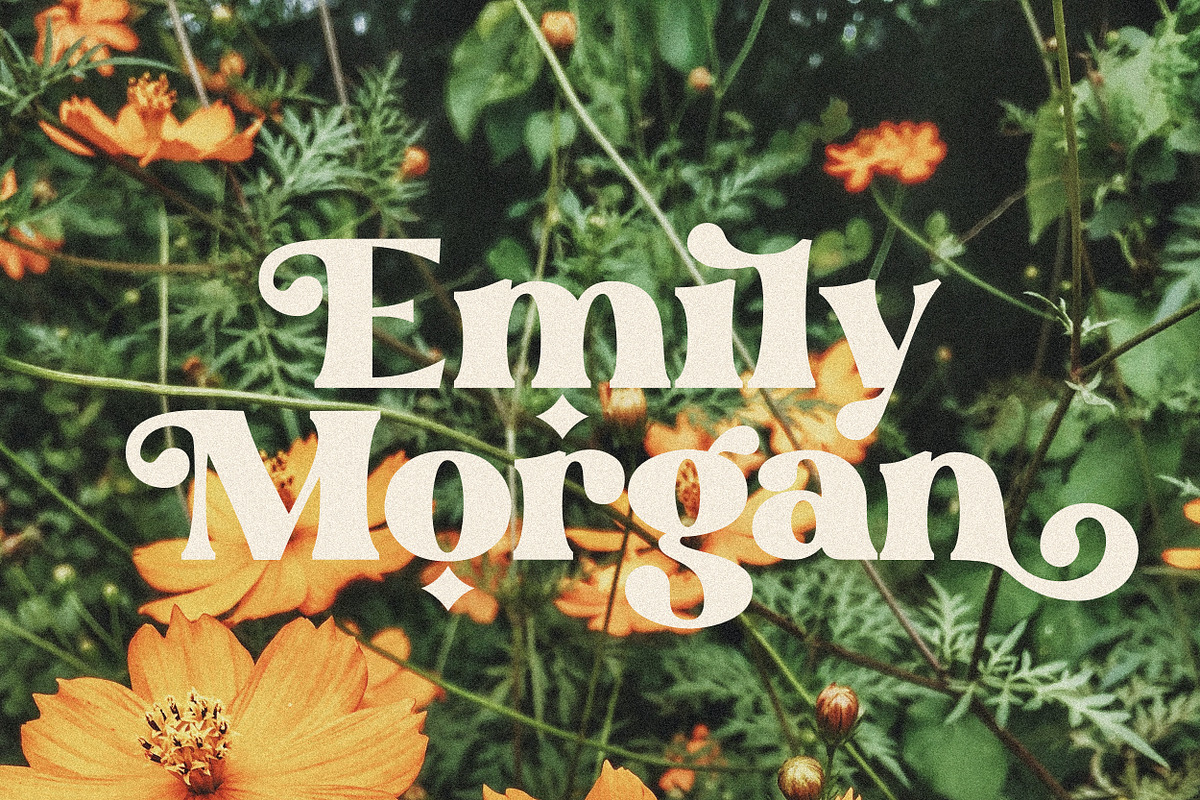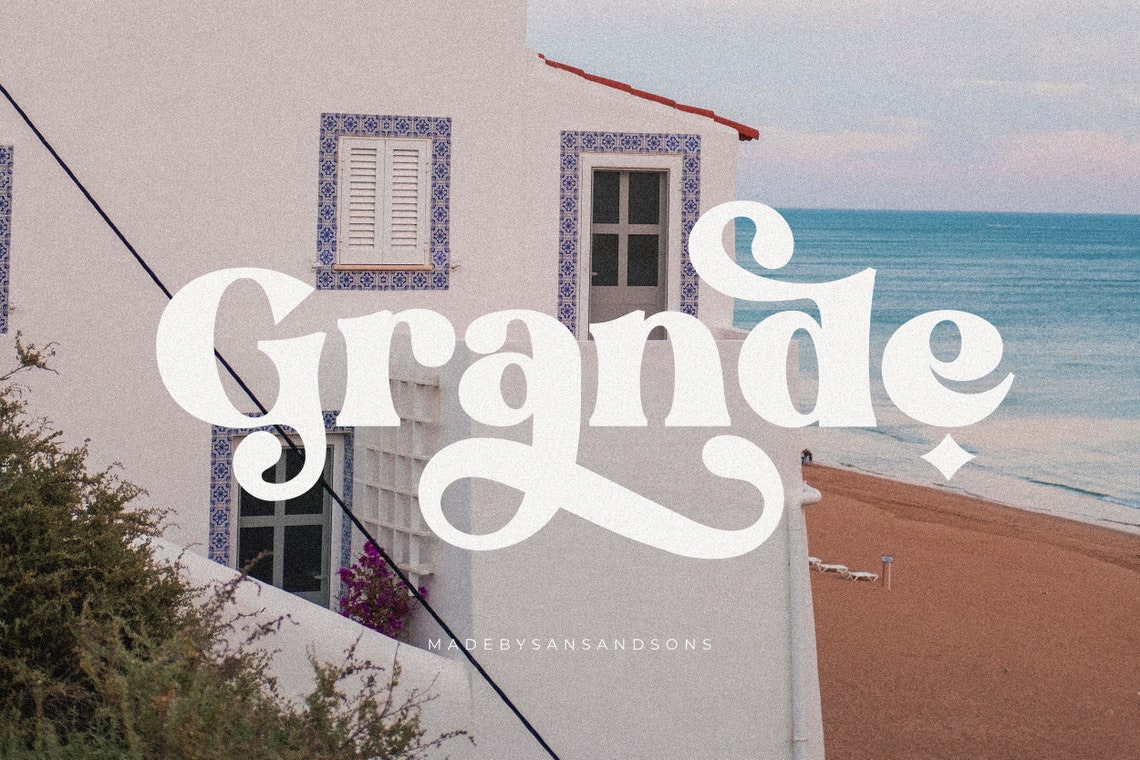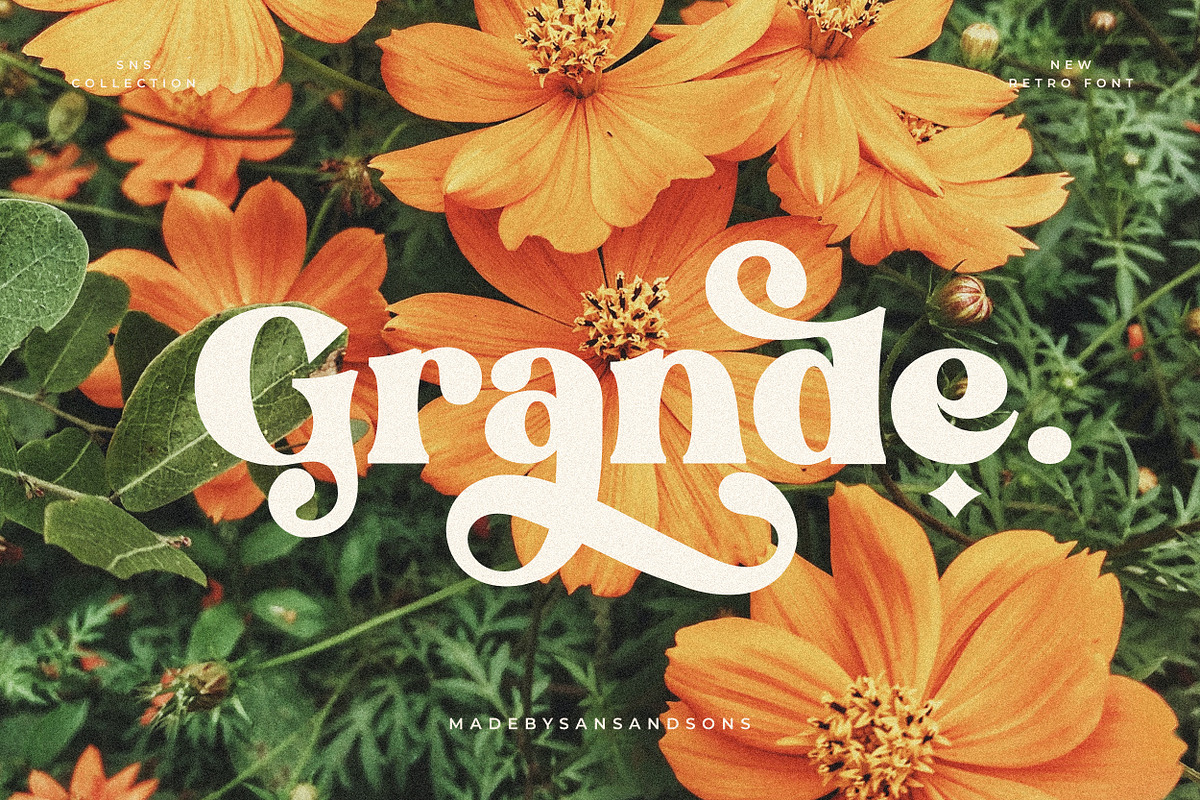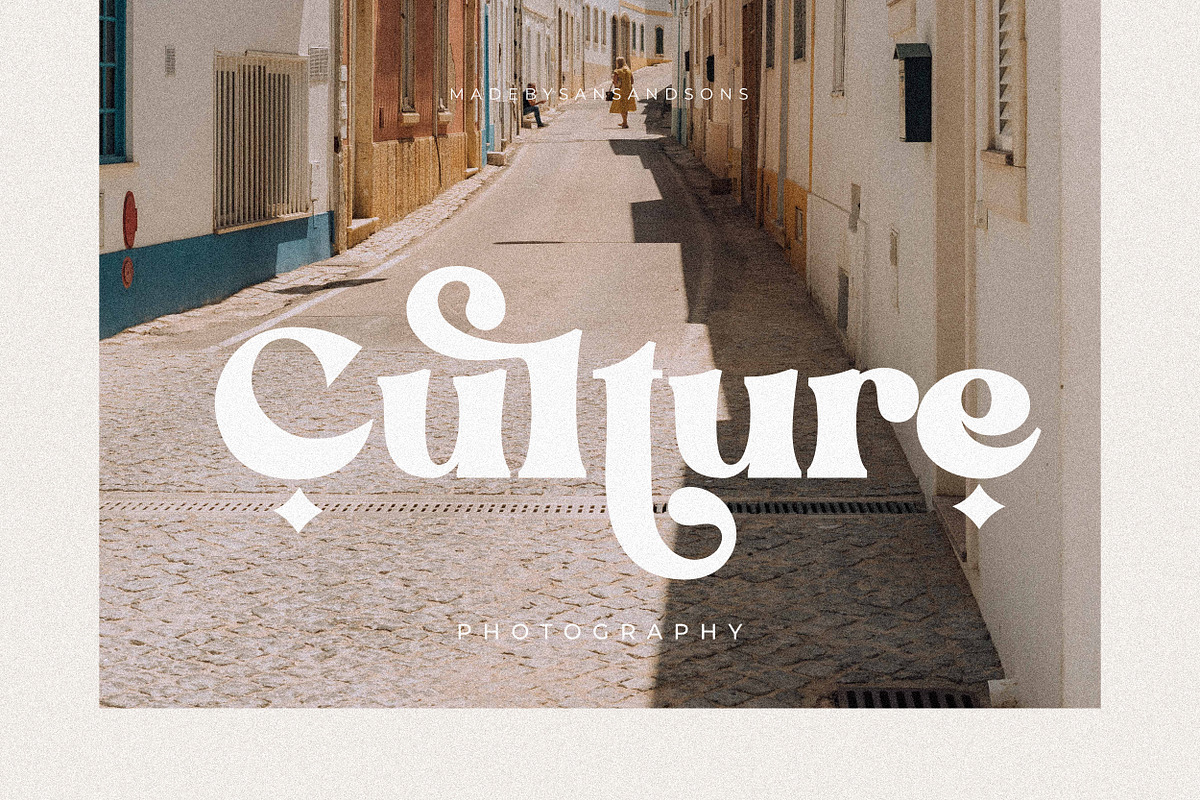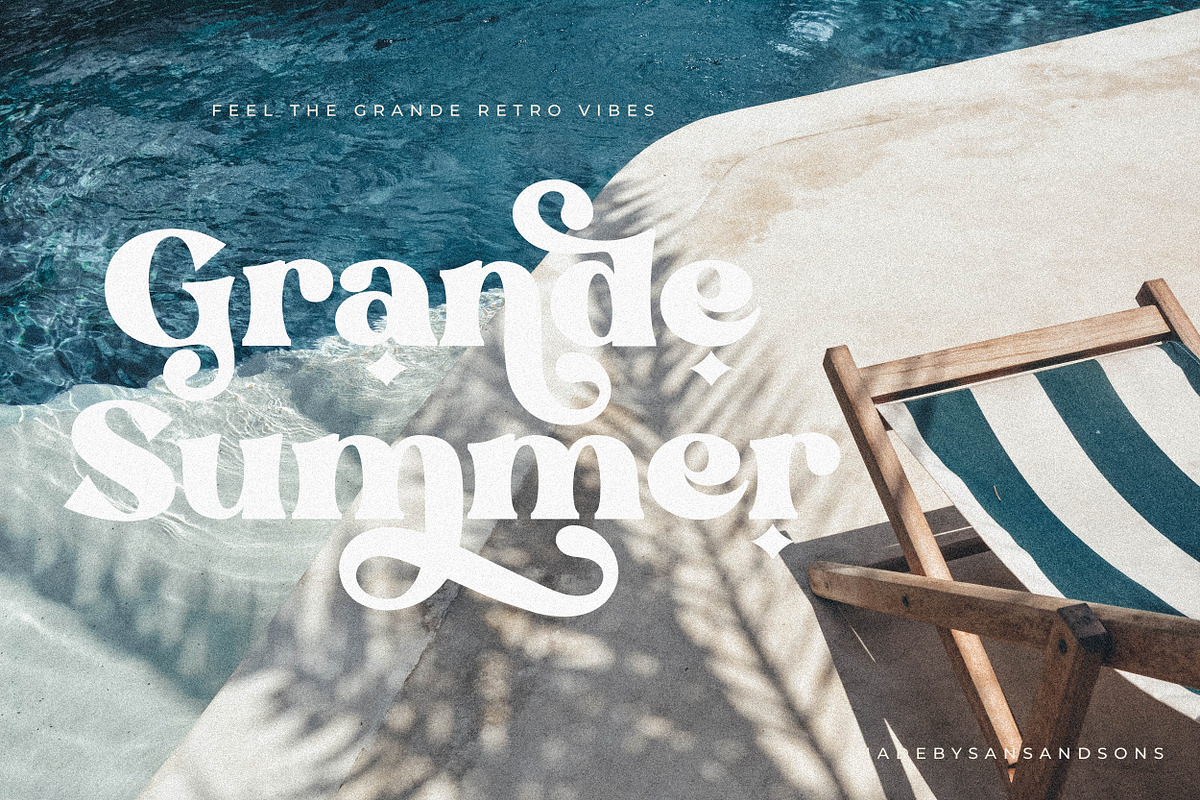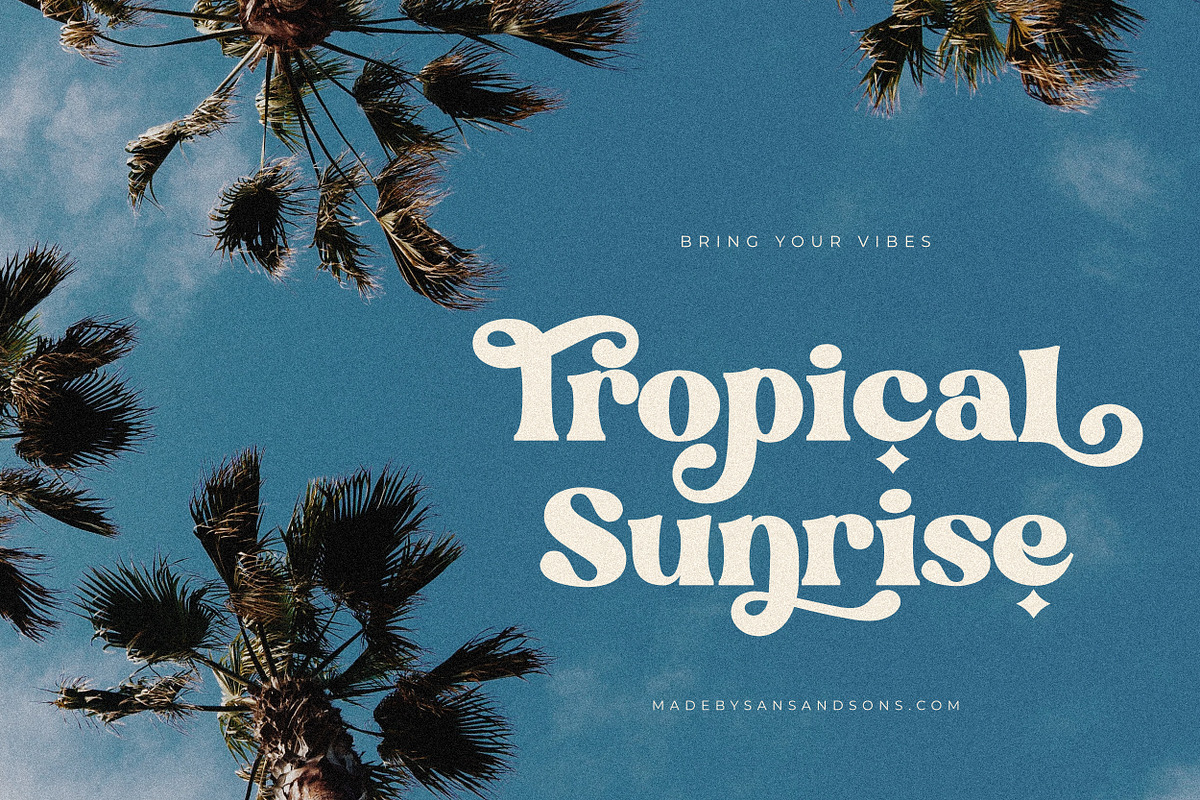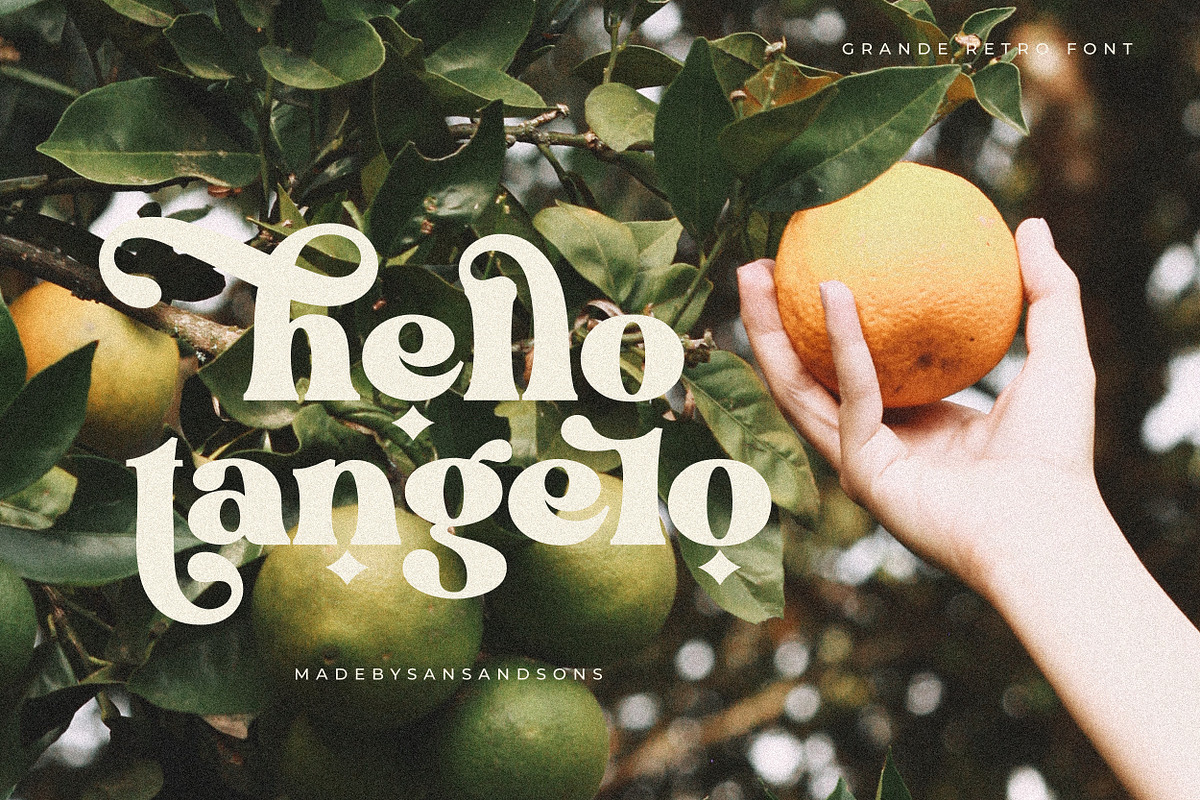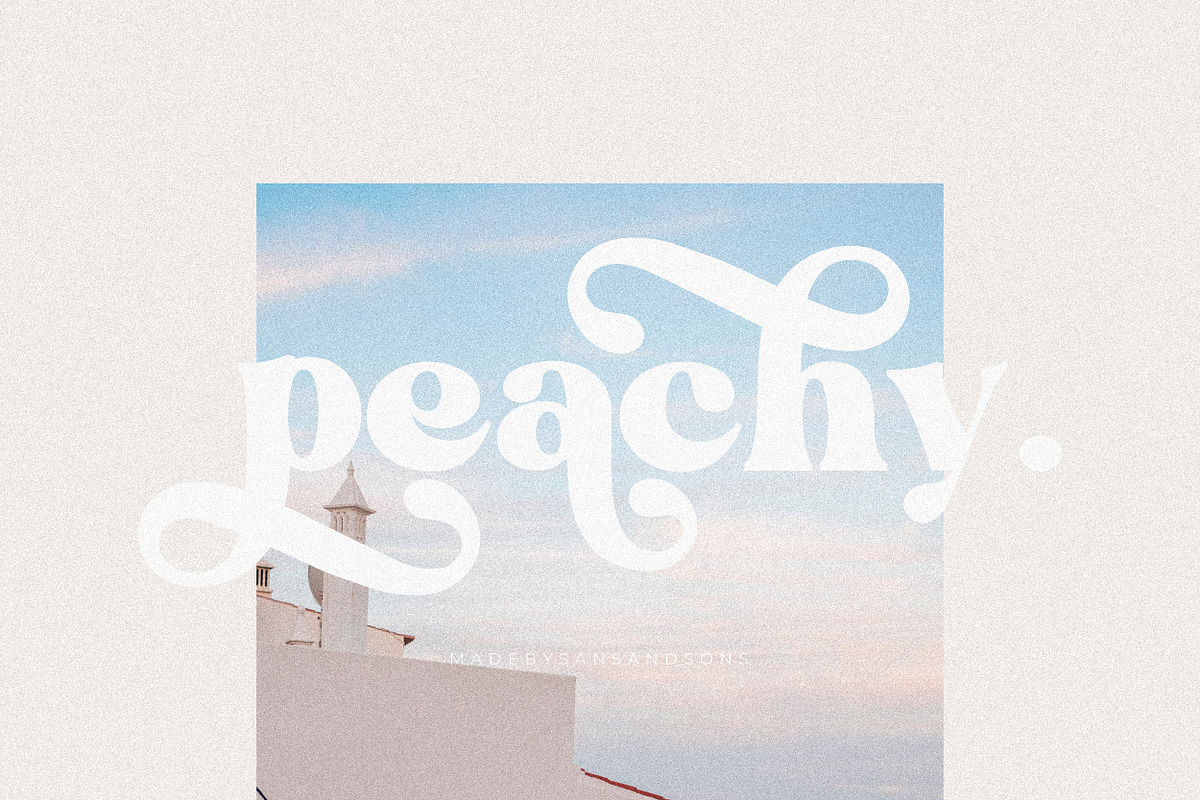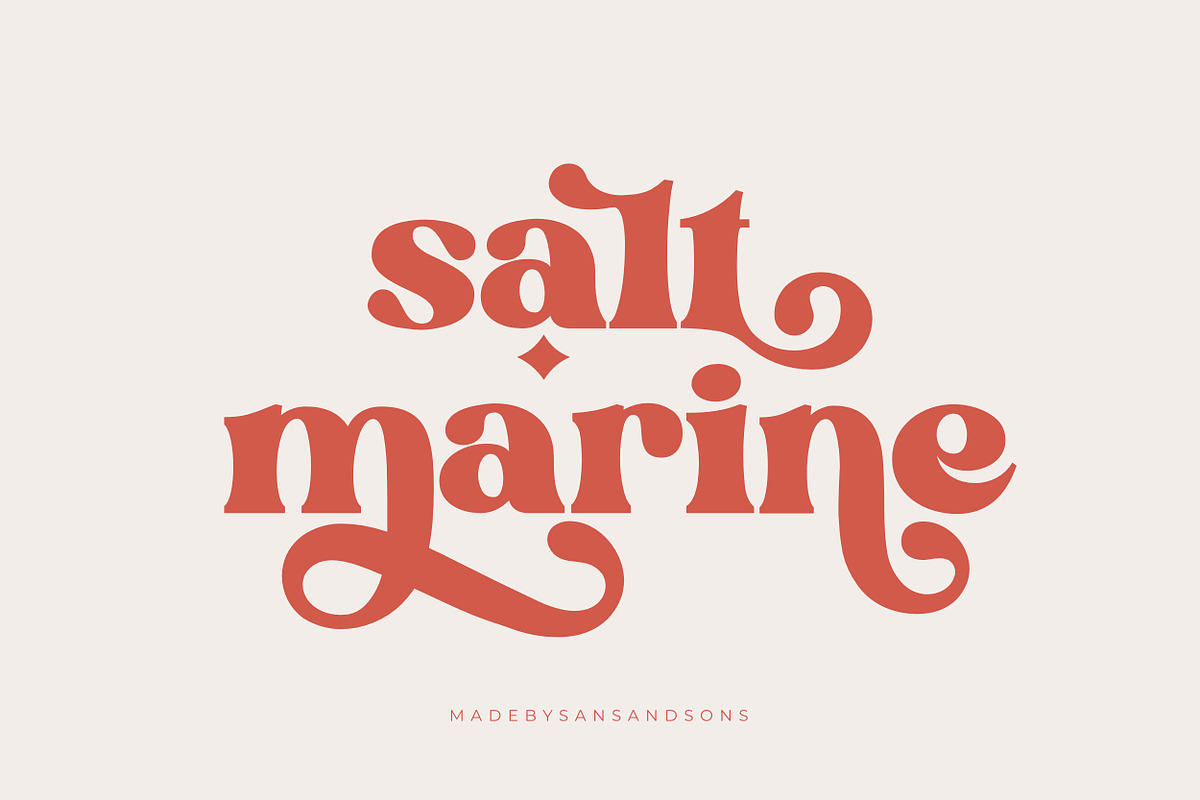
Grande - Retro Font
Grande - Modern Retro Font by Sans and Sons
introducing our new "Grande" Modern Retro with Fun and Elegant Style is perfect for branding, logos, invitation, master heads, and more.